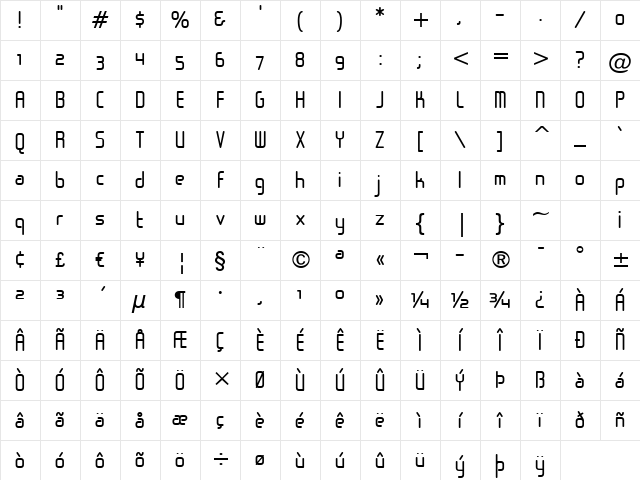
Sugarskin BTN Bold Free Font
Sugarskin BTN Bold
Complete Sugarskin BTN Bold glyph index. Displaying only characters natively supported by Sugarskin BTN Bold font.
Design Context for Sugarskin BTN
Sugarskin BTN is a composed and adaptable typeface that performs quietly and consistently across a wide range of design contexts. Its bold stroke weight gives it real presence on the page.